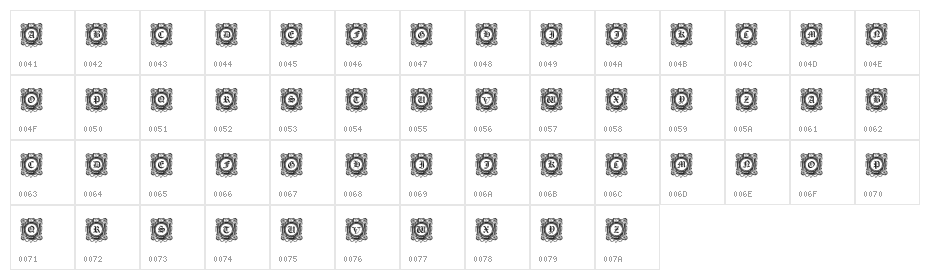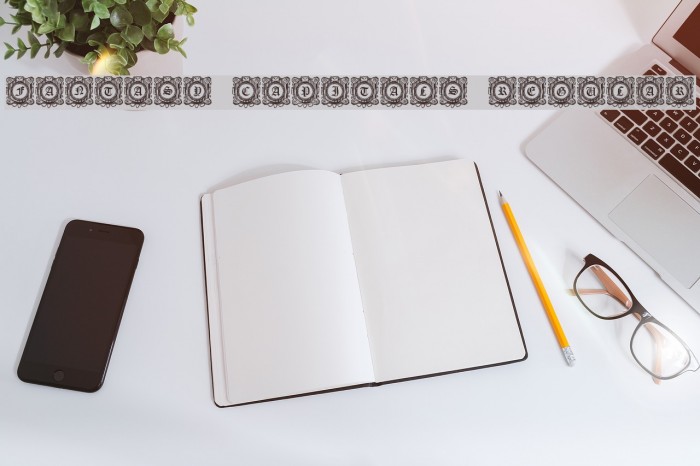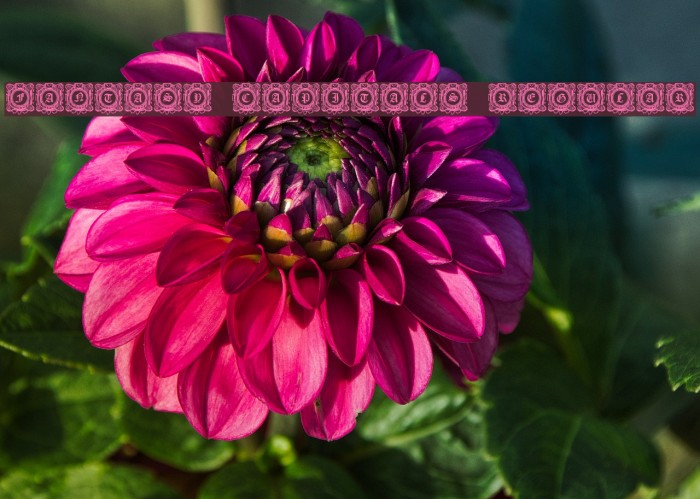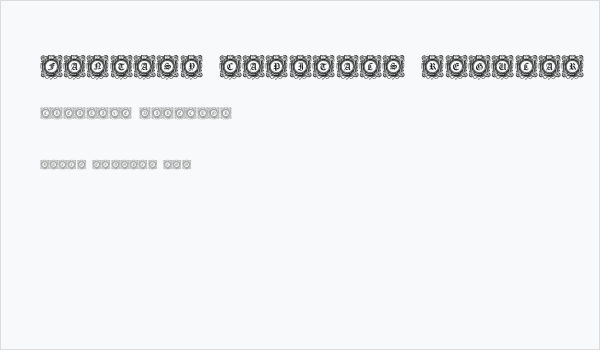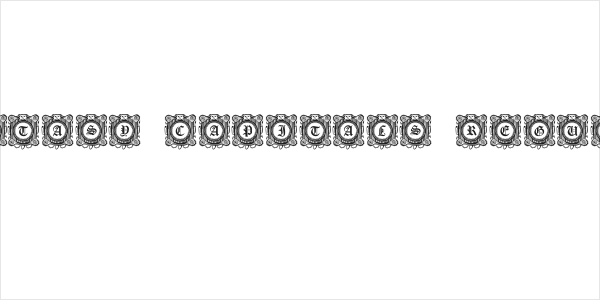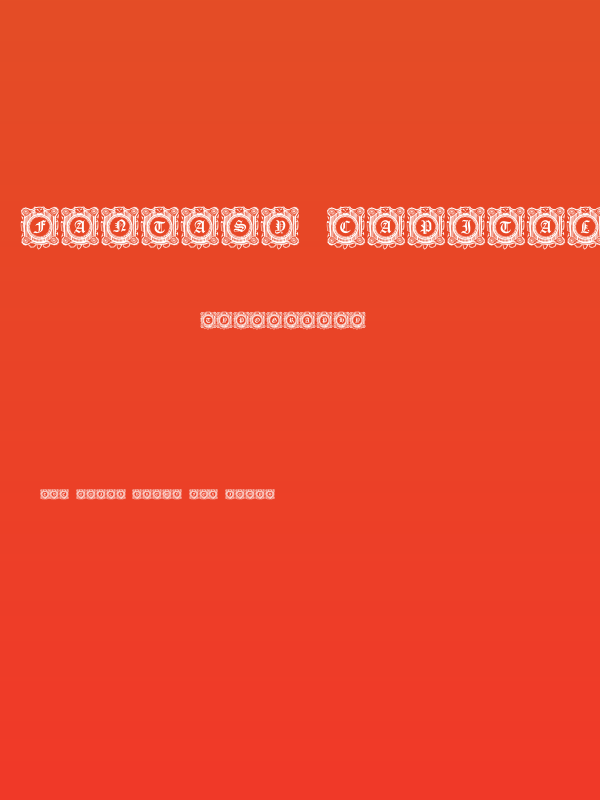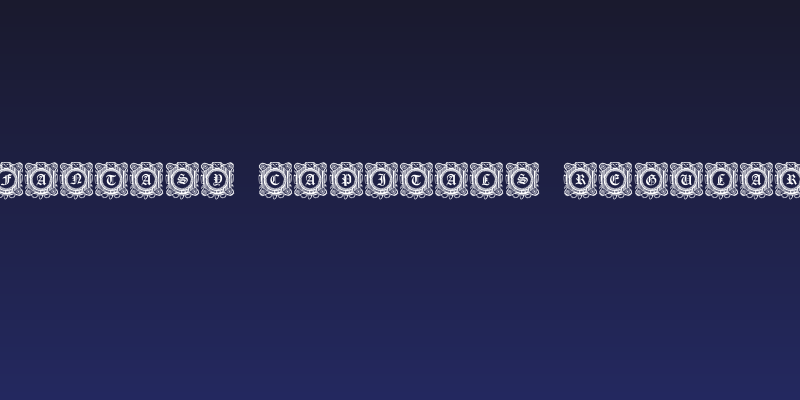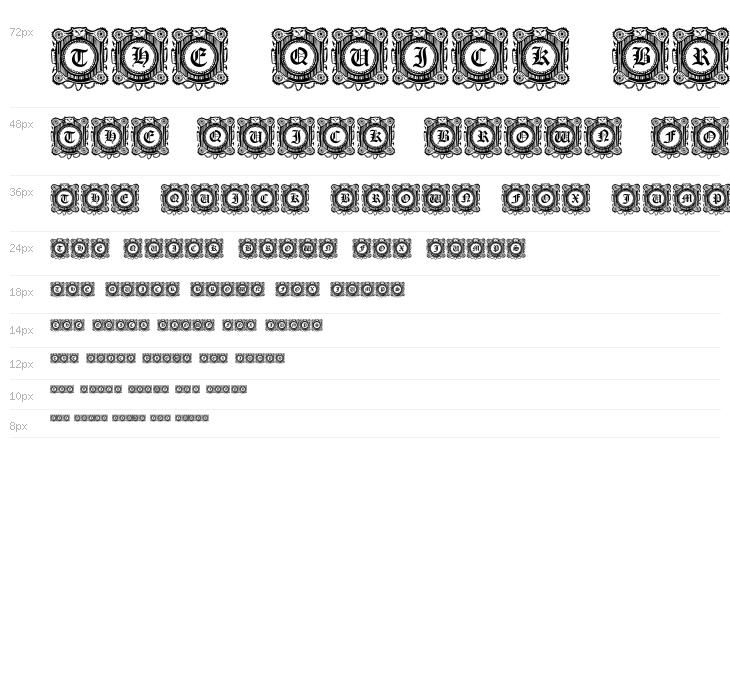
Fantasy Capitals Regular Font
Fantasy Capitals Regular Description
This font features ornate, decorative capital letters encased in intricate frames, reminiscent of medieval or fantasy-themed designs. Each letter is bold and highly stylized, with elaborate embellishments that give it a regal and majestic appearance. The intricate borders surrounding each character add to the overall complexity and artistic flair, making it suitable for projects that require a touch of elegance and sophistication. The design is consistent across all characters, maintaining a uniform look that enhances its decorative appeal.
| Use Case | Logos, Headlines, Decorative elements |
| Proposed Projects | Perfect for fantasy book covers, medieval-themed event invitations, or decorative posters. |